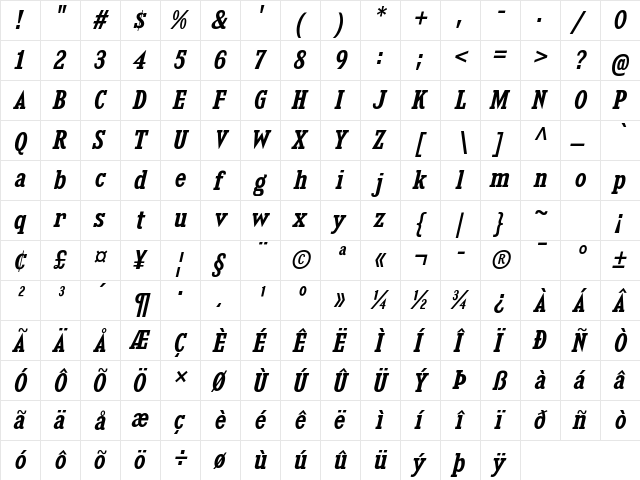
Kingsbridge SemiCondensed SemiBold Italic Font Preview
Design Context for Kingsbridge Typeface
Kingsbridge offers clean, dependable letterforms without strong stylistic allegiance, making it a practical choice for designers who need flexibility. The slanted form adds forward momentum and visual energy. The heavy weight commands attention and anchors typographic hierarchies. The condensed width makes it efficient for tight spaces without sacrificing legibility.
Pro Tip: Use Kingsbridge for emphasis, pull quotes, and subheadings where its slanted energy can add rhythm to the layout.